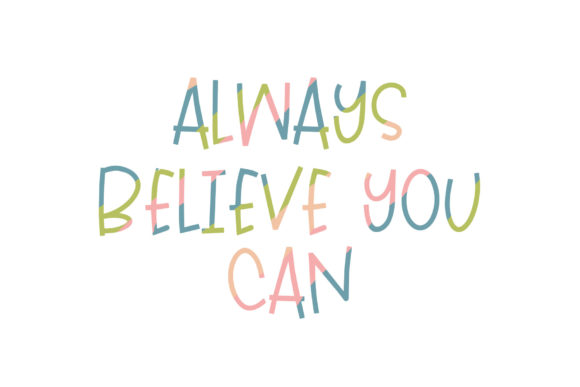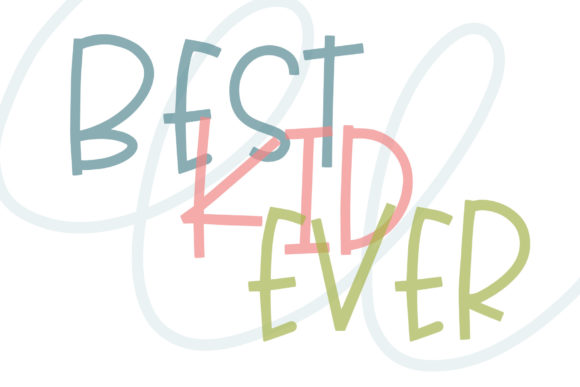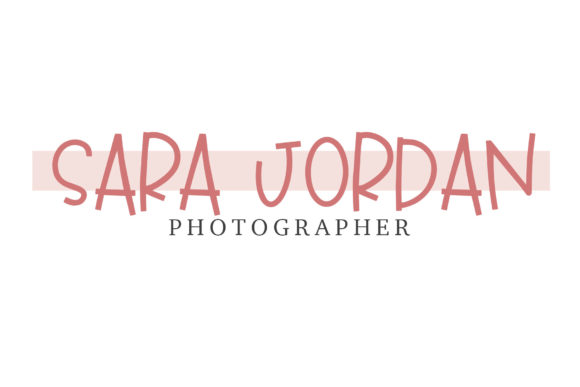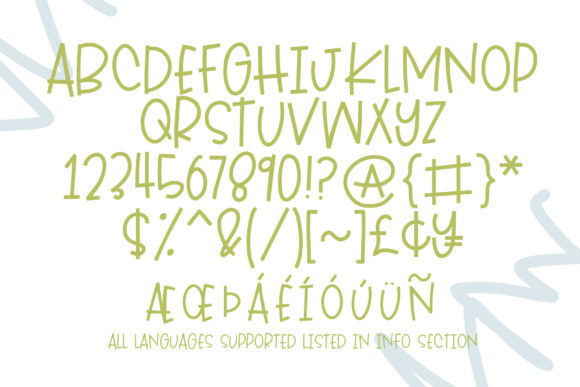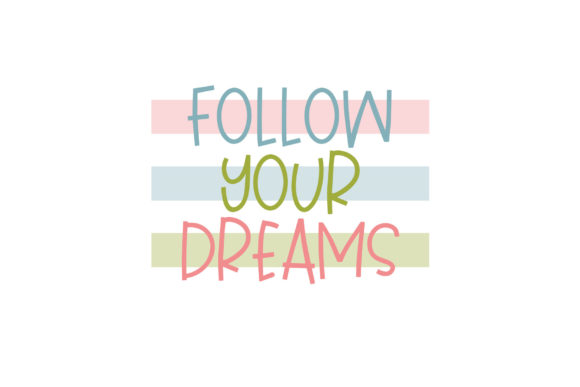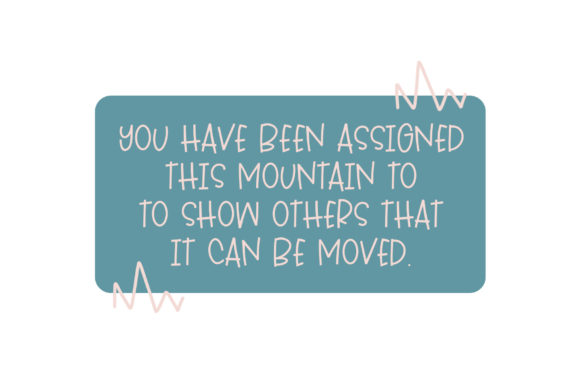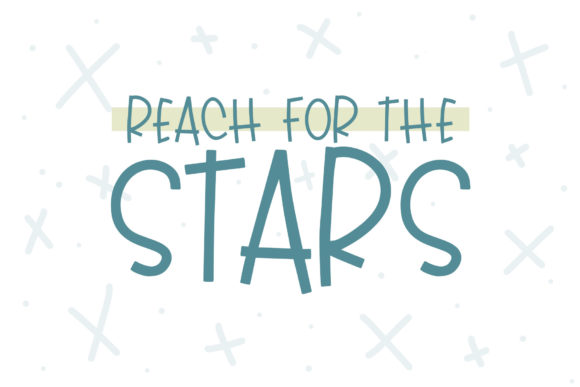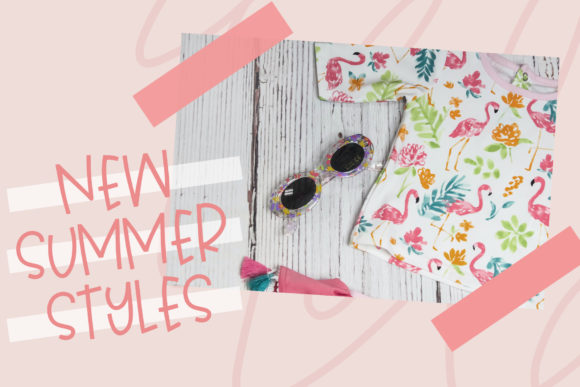
Whatever Font
About Whatever Font
Whatever is a cute and fun handwritten font. Quirky, readable and childish, this font will make each of your designs look approachable.